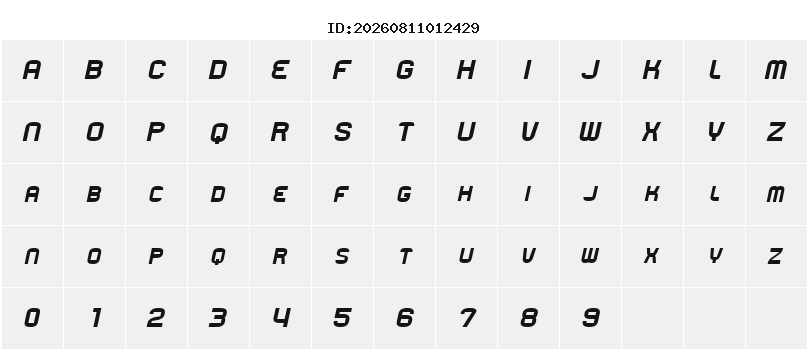
• Font Name: Rueck
• Designer: Peter Wiegel
About Rueck.ttf
Rueck.ttf is a modern, elegant sans-serif font designed for ultimate readability and visual harmony. Perfect for branding, headlines, web design, and print materials.